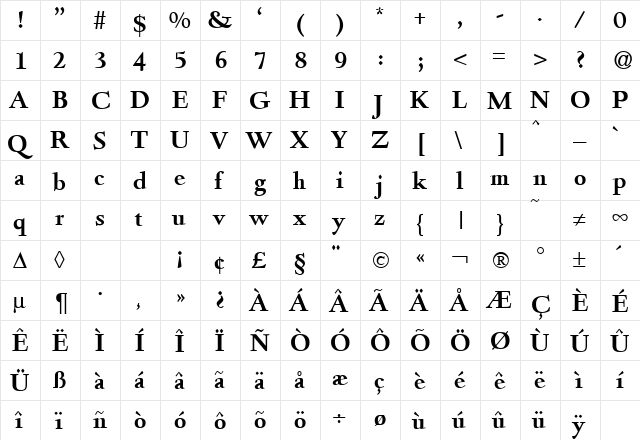
Deemster Bold
Design Context for Deemster Typeface
Deemster takes a measured approach to typography — its balanced proportions and neutral character make it a reliable workhorse for both digital and print work. The heavy weight commands attention and anchors typographic hierarchies.